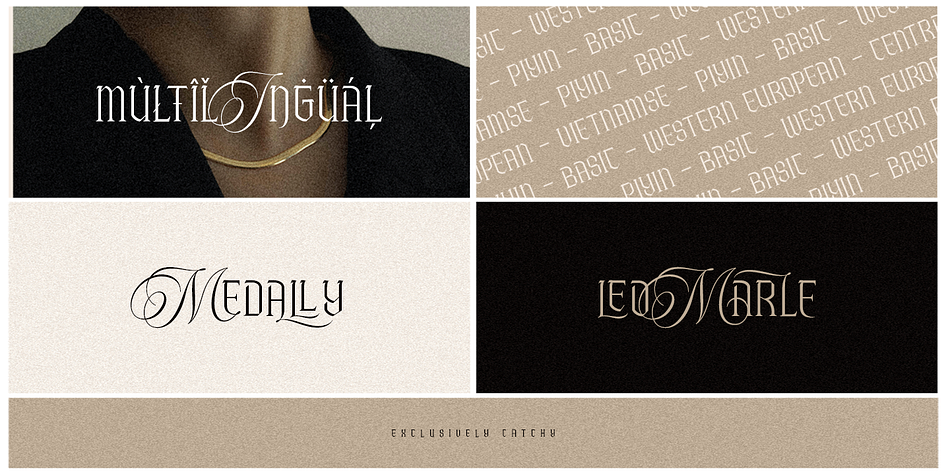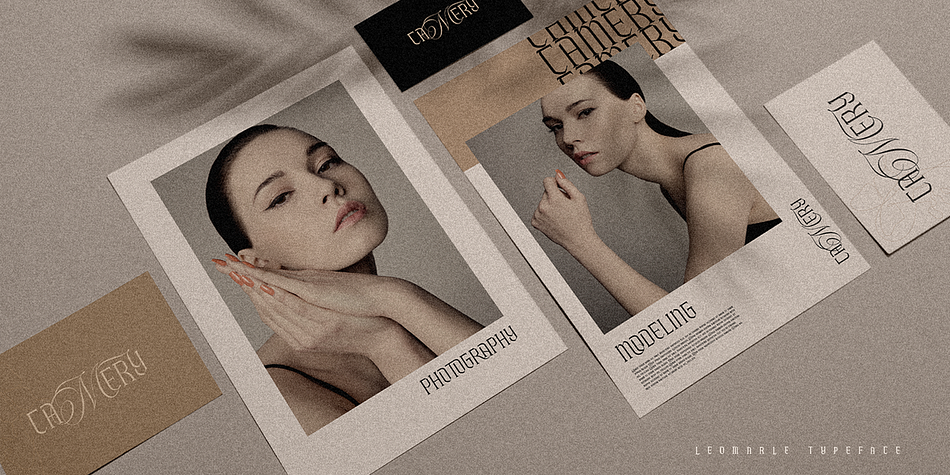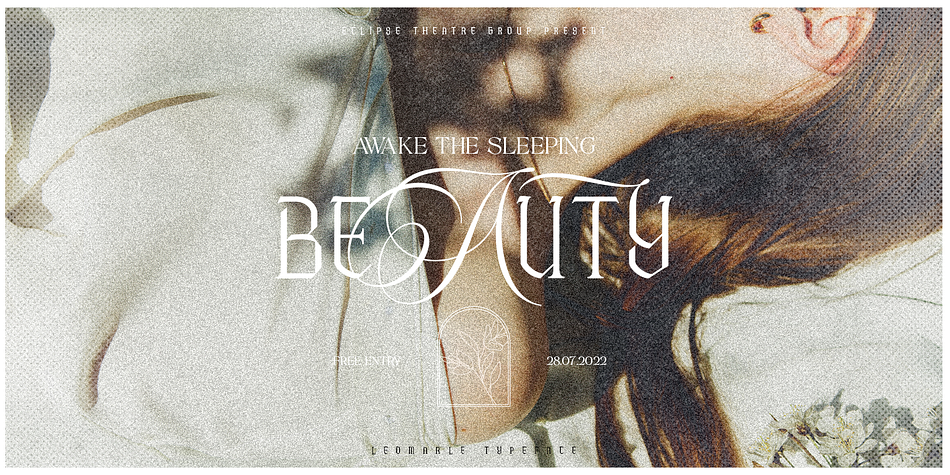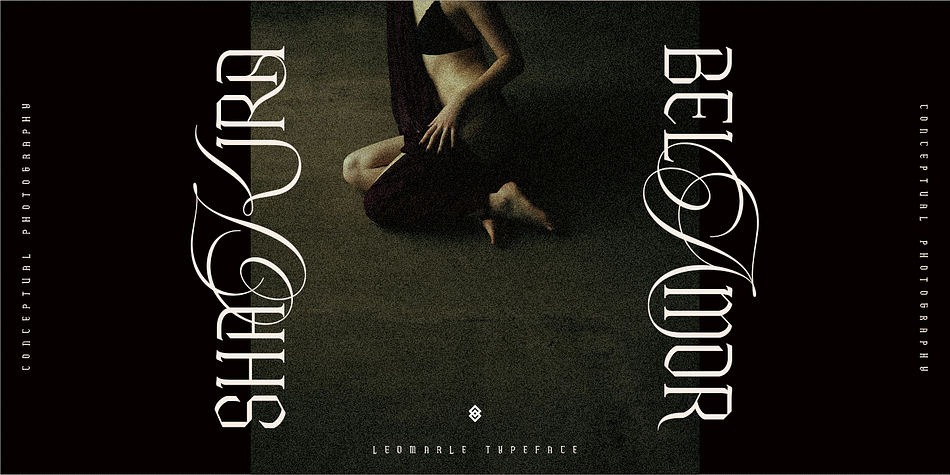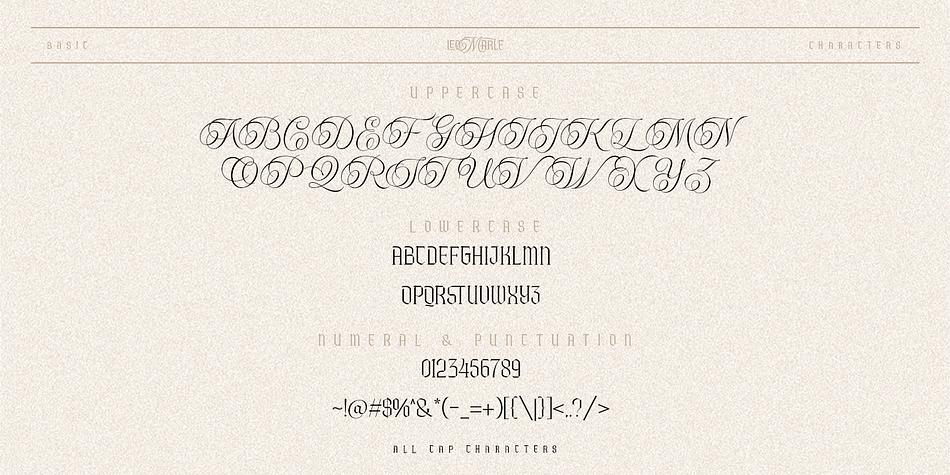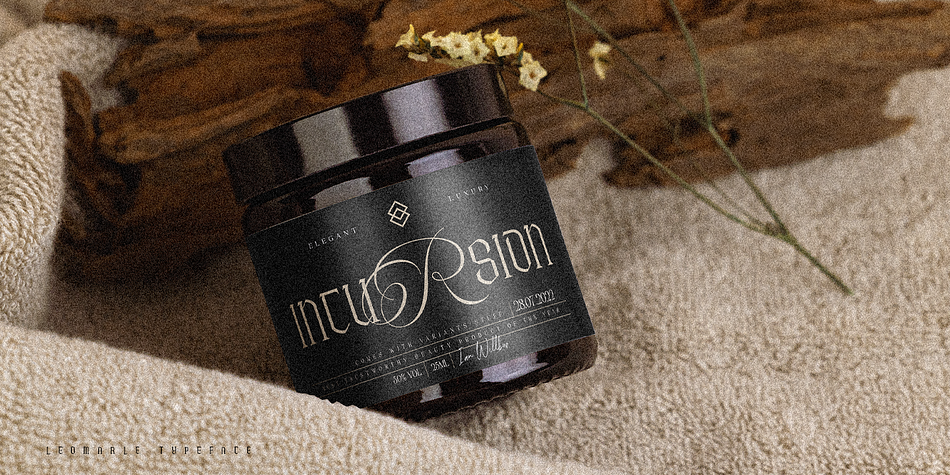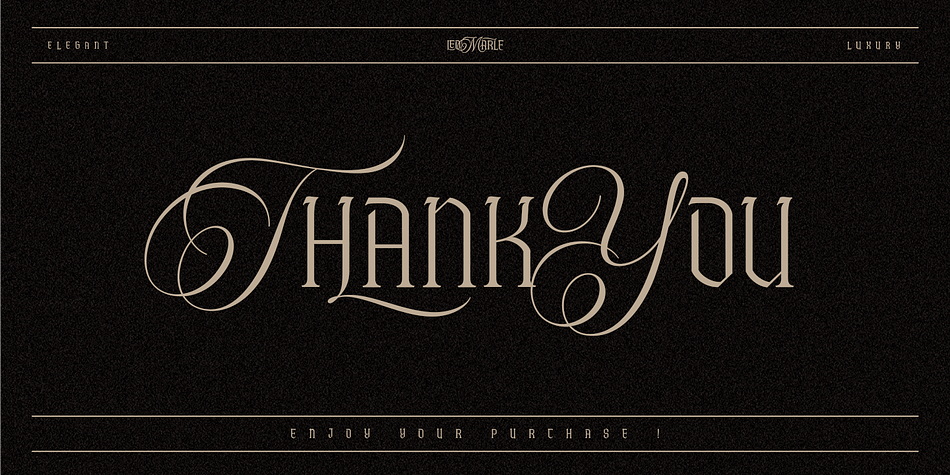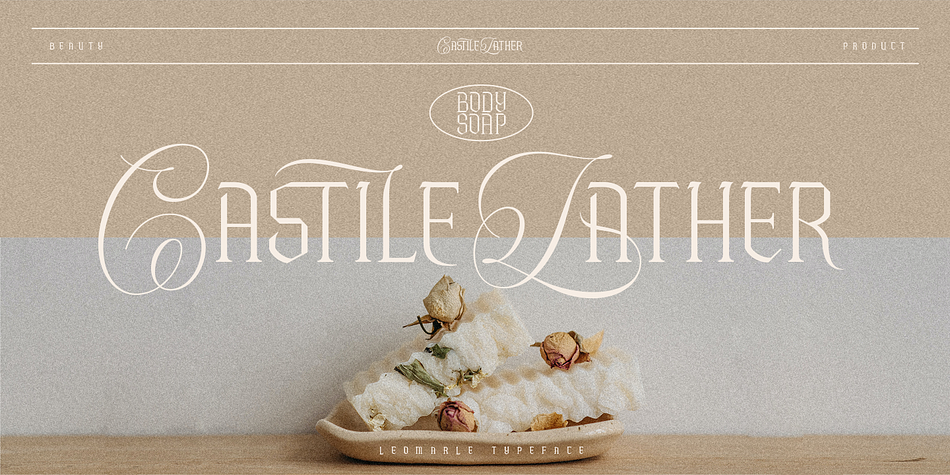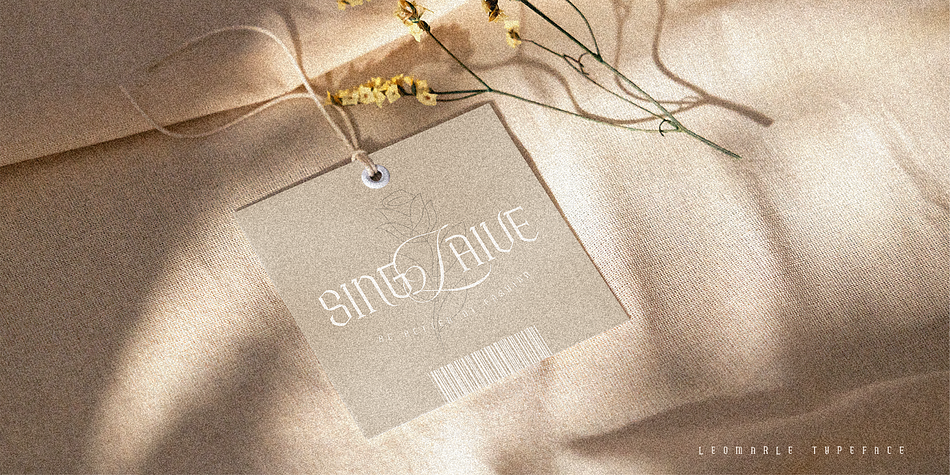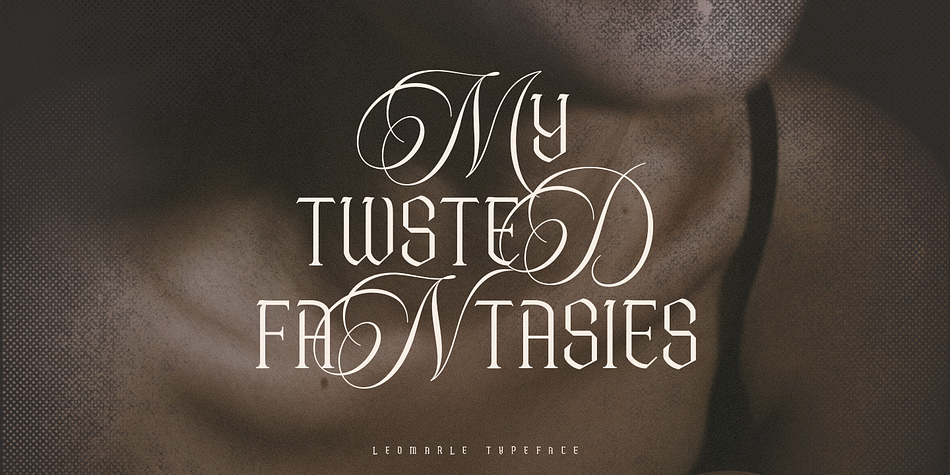
Designed by Alit Suarnegara, Leomarle is a display, modern calligraphy and script font family published by Alit Design.
Presenting the LEOMARLE typeface from alitdesign.
Leomarle is inspired by the classic blackletter font. The leomarley font is designed with an elegant combination of scripts that is very cool when combined with a simple blackletter style. This font looks unique and elegant when used for making designs.
The “LEOMARLE"contains 591 glyphs with many unique and interesting alternative options.
Language Support : Latin, Basic, Western European, Central European, South European,Vietnamese.